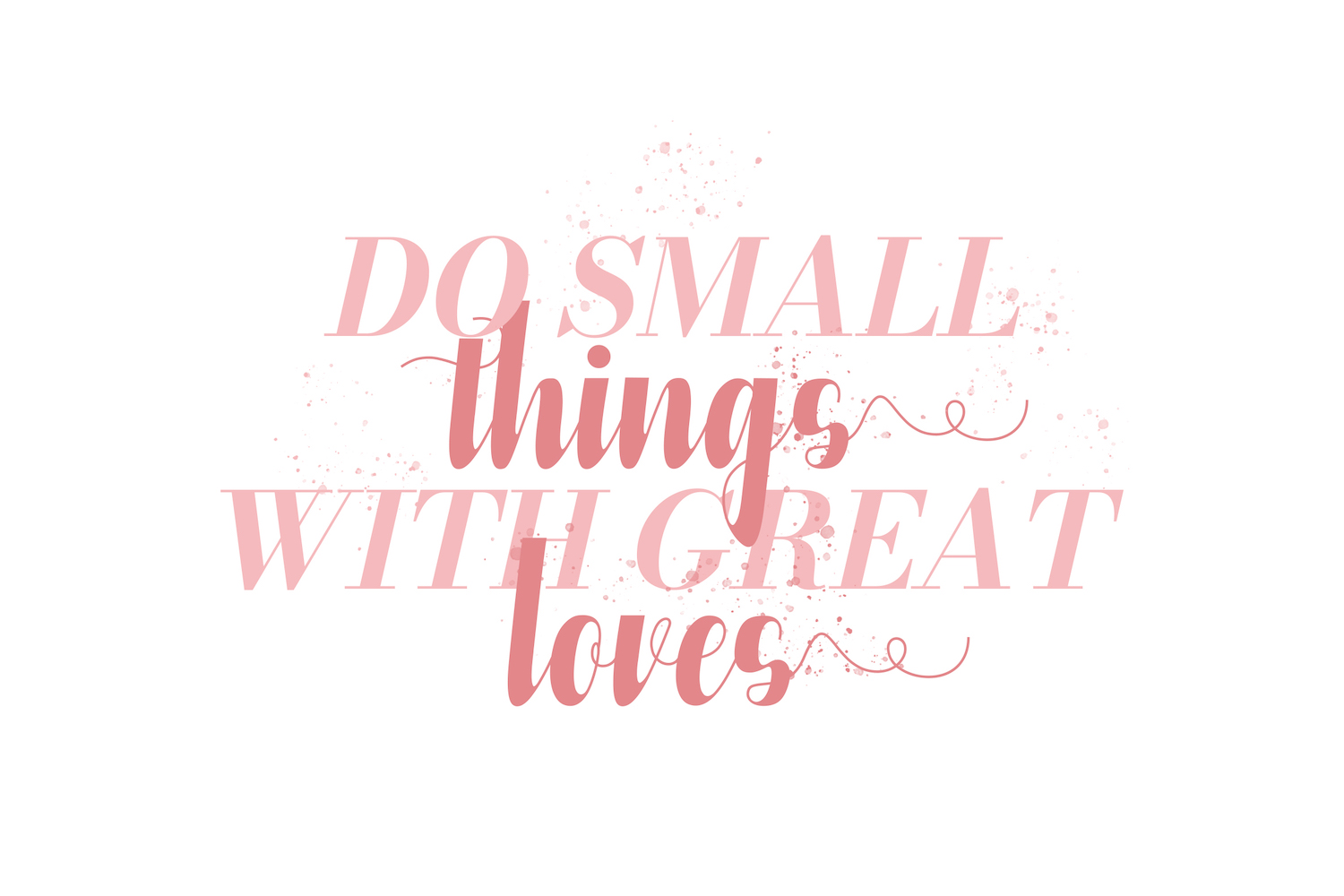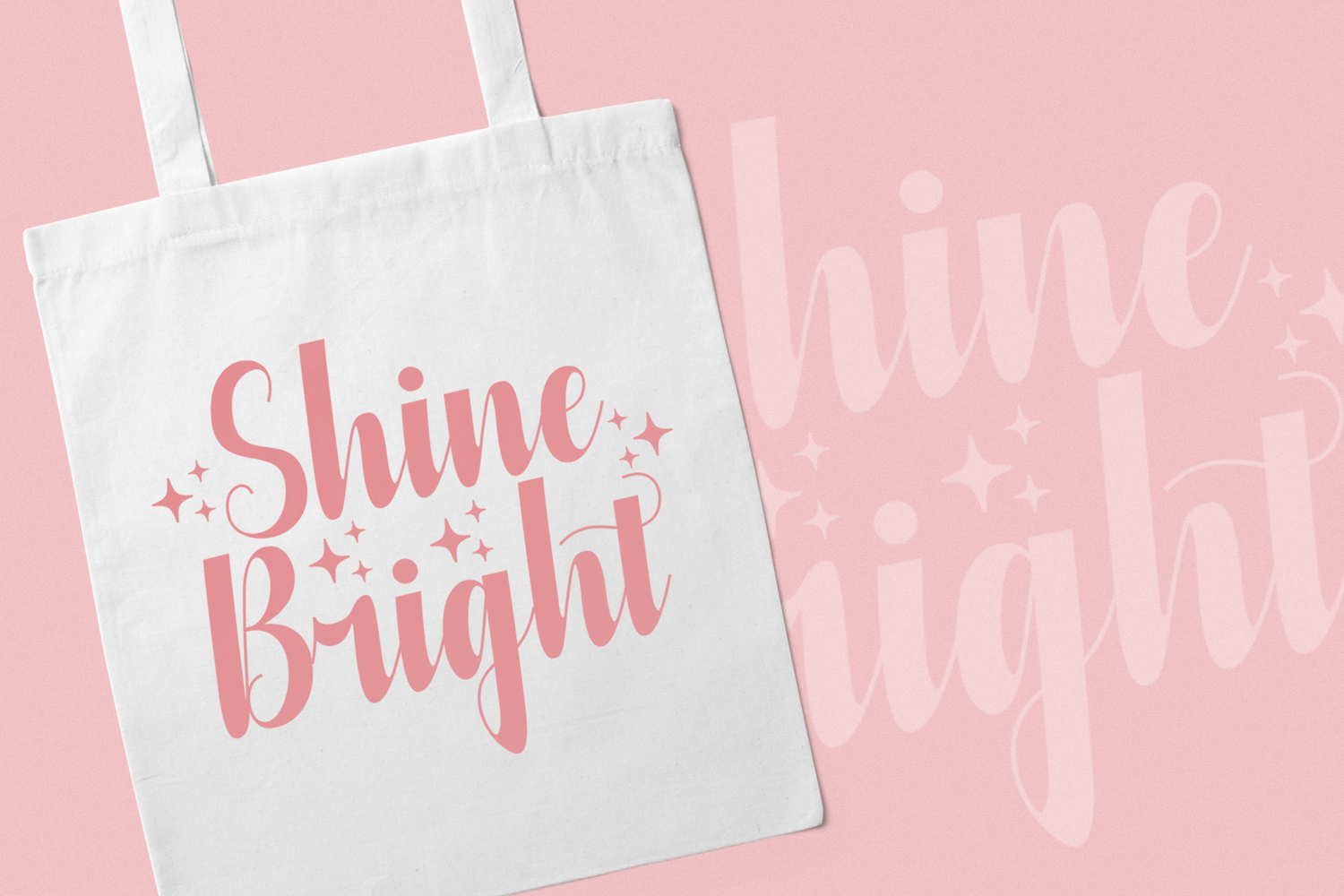
Azteciya is a modern script typeface made for real-world display design—ideal when you need a boutique-style handwritten feel for logos, posters, and social media graphics. This typeface works best as a “hero” font: the main attention-grabbing element that sets the mood, especially in clean layouts with plenty of space and a soft visual style.
Where Azteciya works best:
- Logos and wordmarks for boutiques, beauty, skincare, fashion, florists, handmade products, and lifestyle brands.
- Wedding and event stationery such as invitations, RSVP cards, signage, menus, and thank-you cards.
- Social media content such as quote posts, promotional banners, story covers, and campaign headlines.
- Packaging and labels for candles, soaps, sweets, gift labels, stickers, and product branding.
- Editorial-style headlines for lookbooks, mood boards, feature headers, and short taglines.
Where you should avoid using it:
- Long paragraphs or body text, because readability drops quickly in extended reading.
- Small-size applications such as UI text, app interfaces, tables, or detailed information layouts.
- Strict corporate branding or highly formal settings where you need a serious, rigid tone.
- Any design that requires maximum legibility at small sizes (forms, manuals, legal text).
Why choose this font:
- It delivers a premium, romantic, and feminine feel while still looking clean and modern.
- The smooth strokes and elegant rhythm make it ideal for brand names and short headlines.
- It naturally supports a “premium boutique” impression, especially when paired with minimalist composition and soft visuals.
Practical tips for the best results:
- Use this font for short phrases, names, or titles, and pair it with a simple sans-serif font for supporting text.
- Give it the right amount of whitespace—avoid over-decoration and keep textured backgrounds soft.
- Maintain strong contrast between the text and background to preserve clarity.
- If it feels too tight, slightly increase letter spacing (tracking) and keep the font size large.